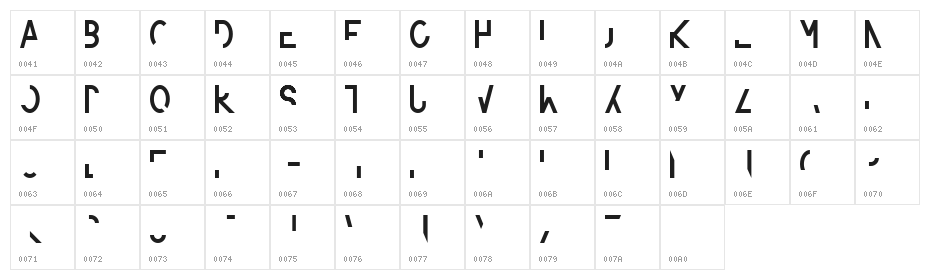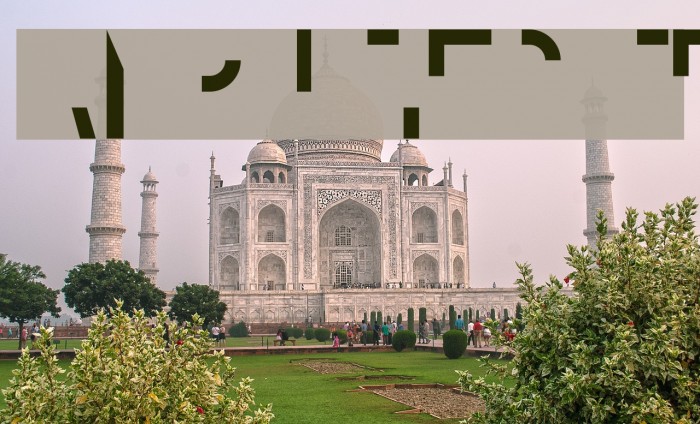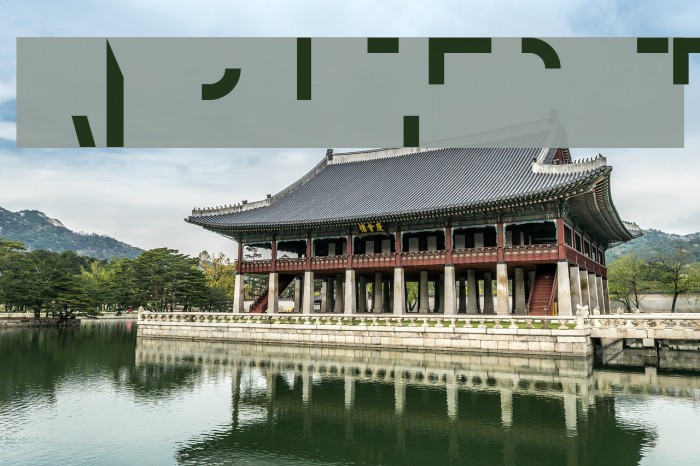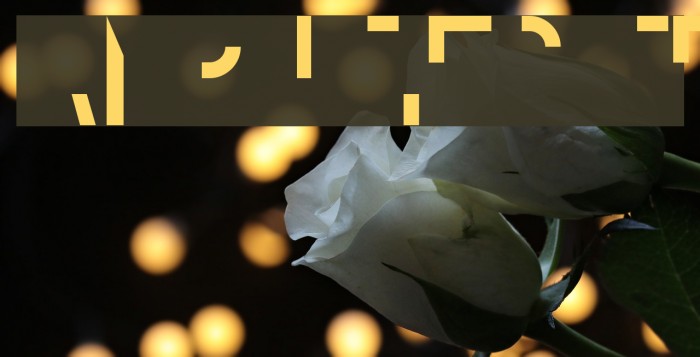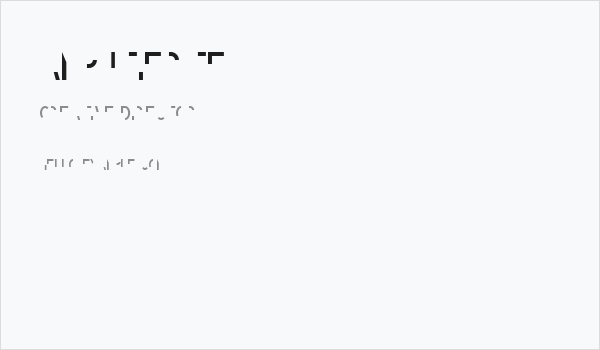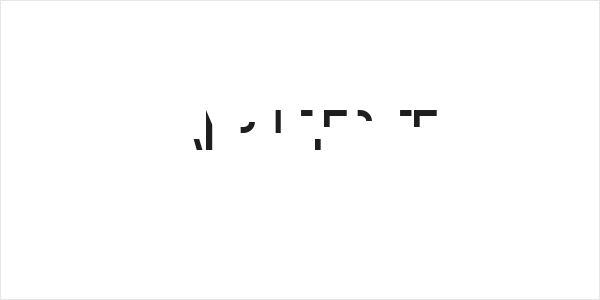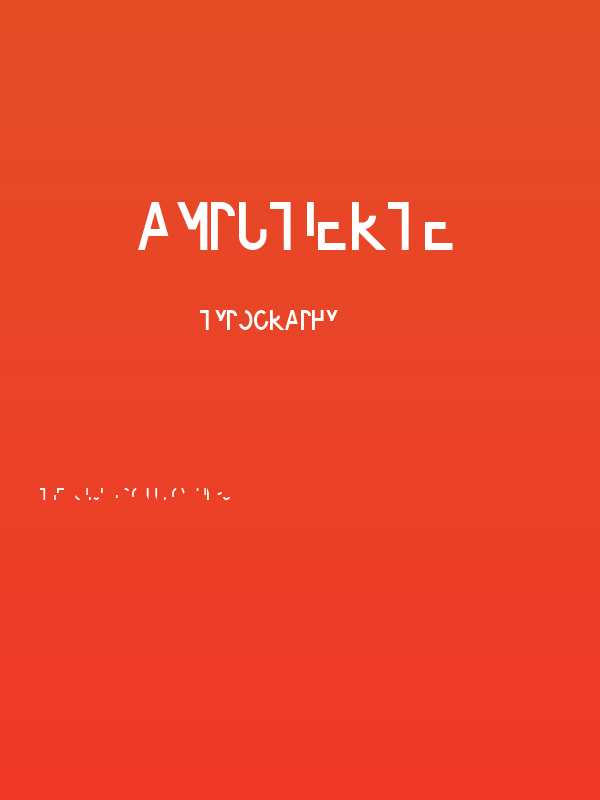
amputierte Font
amputierte Description
This font features a highly abstract and fragmented design, with each character appearing as if it has been partially erased or cut. The strokes are bold and geometric, giving a modern and avant-garde feel. The uppercase and lowercase letters are consistent in style, maintaining the fragmented aesthetic across the board. The numbers and special characters follow the same design principles, ensuring uniformity throughout the typeface. This font is not suitable for body text due to its unique and challenging readability but stands out as a statement piece in design projects.
A bold, fragmented, and abstract font with a modern, avant-garde style from Crazy fonts.
- Proposed Projects: Ideal for artistic projects, modern art installations, edgy branding, and experimental design work.
- Overall Style: Modern, Avant-Garde
- Use Case: Logos, Headlines, Artistic projects